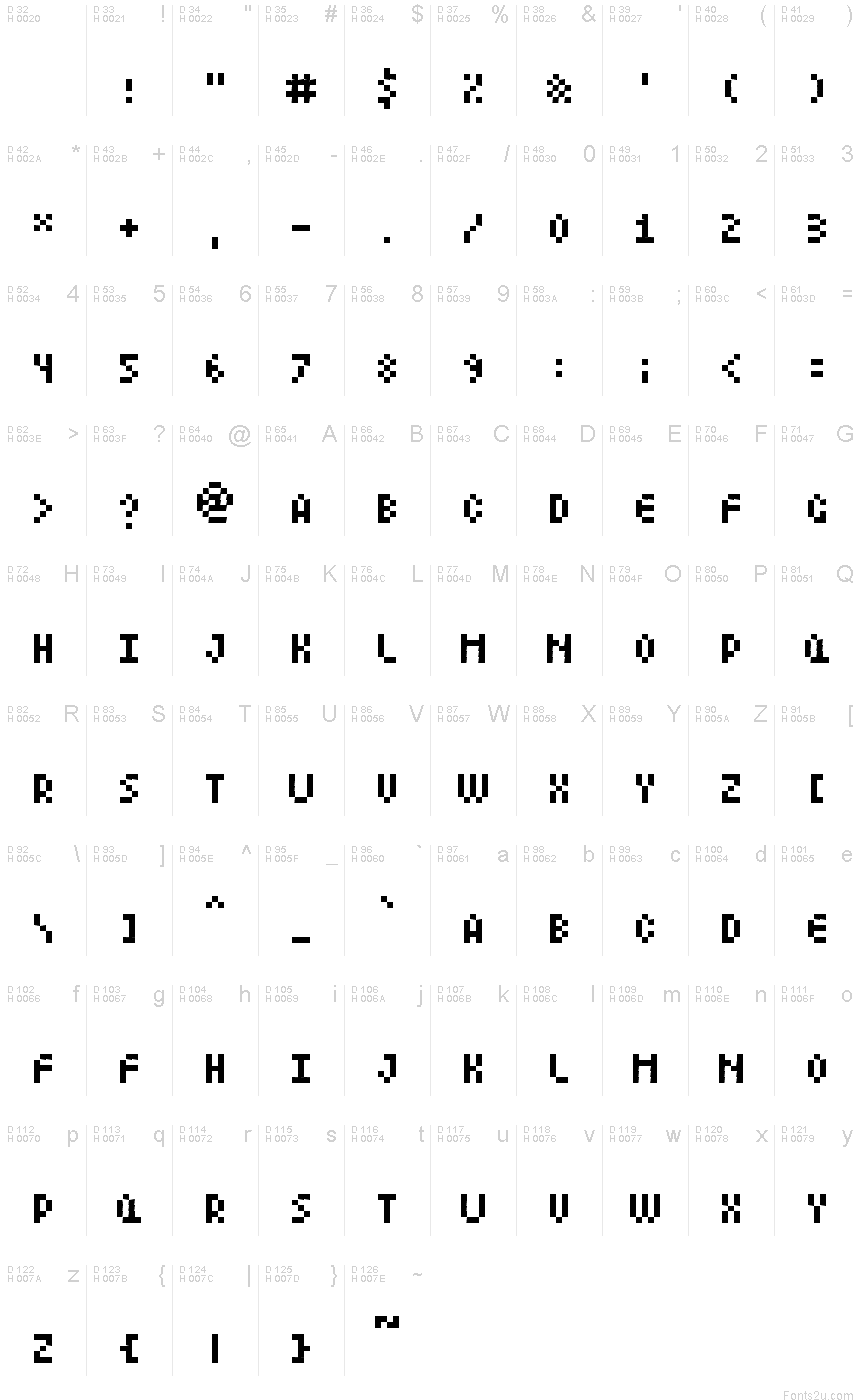
LittleLego by Matt Nunes is a free pixel font with tall, narrow capitals and a stark early-computer look. Its letters use open interiors, abrupt right-angle turns, and occasional widened joints, producing silhouettes that resemble compact circuit paths rather than the fuller forms of typical arcade lettering.
Game title screens and electronic-music posters draw on the same lean, technical character, despite serving very different settings. It also suits coding-event graphics and retro hardware packaging, where the restrained shapes can echo interface diagrams and simple device markings. The circuit-like turns let the lettering become part of a technological pattern or border, linking type and illustration through a shared motif.